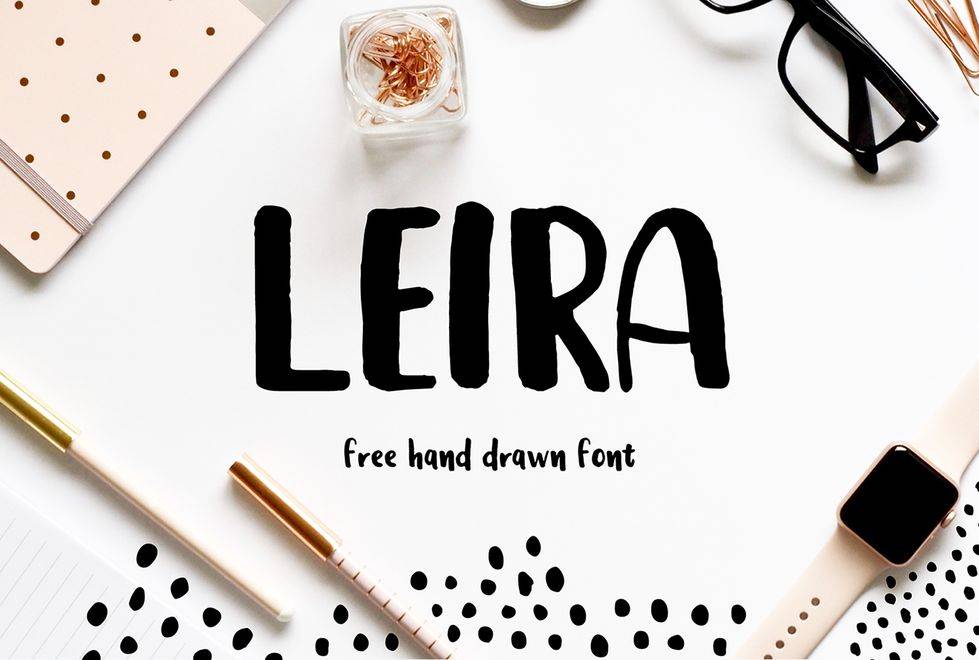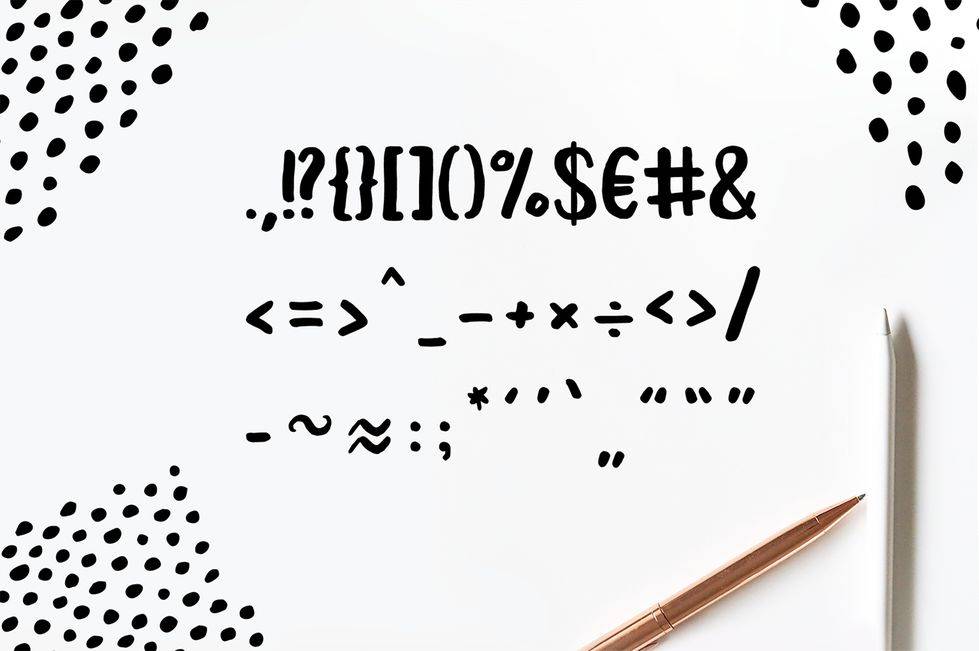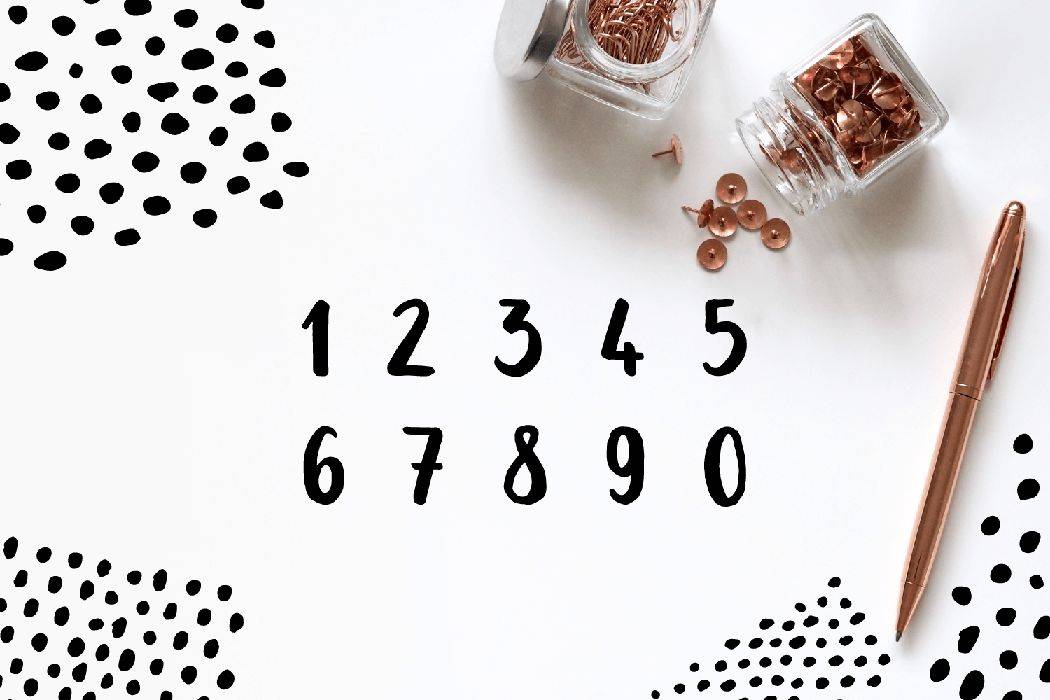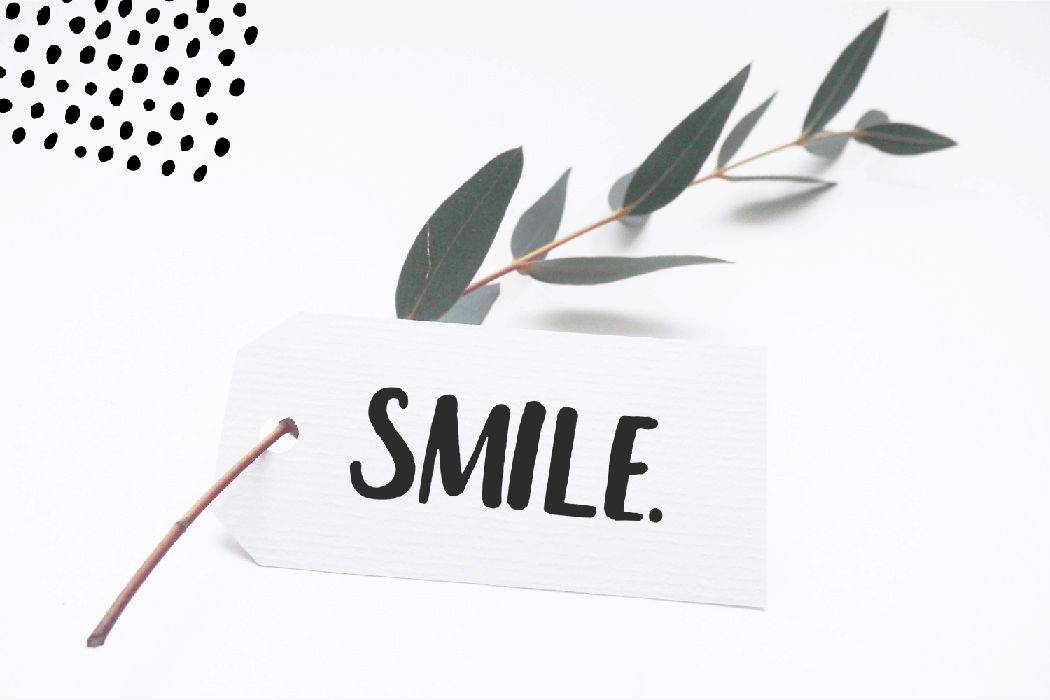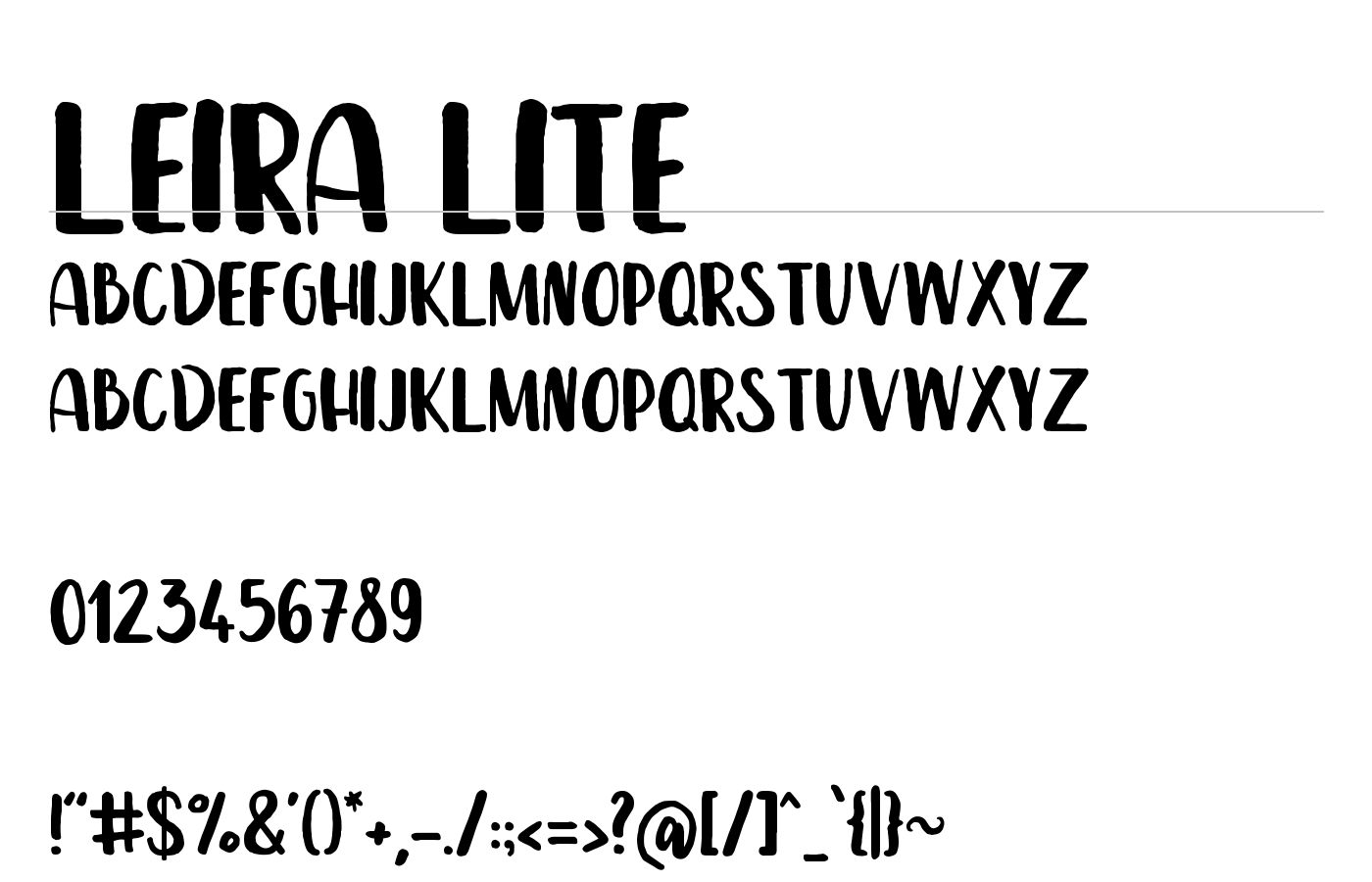
Leira Handdrawn Brush is a casual, playful sans serif font with a hand-crafted feel that mimics brush strokes. Its slightly irregular, rounded letterforms convey warmth and friendliness, making it perfect for creative, informal designs like greeting cards, posters, and branding for lifestyle or artisanal products. This font works best in headlines or display settings where a personal, approachable vibe is desired.
Leira Handdrawn Brush Font
About Leira Handdrawn Brush Font
| Font family | Leira Handdrawn Brush Font |
| Release date | 2017-08-05 |
| Designer | WildOnes Design |